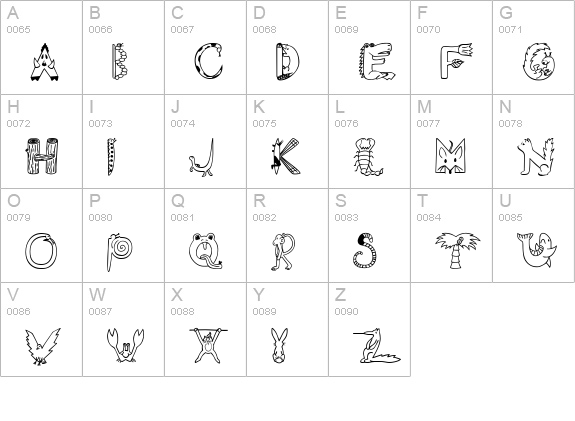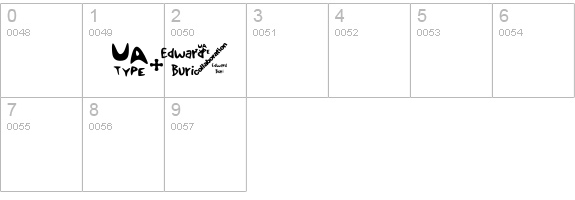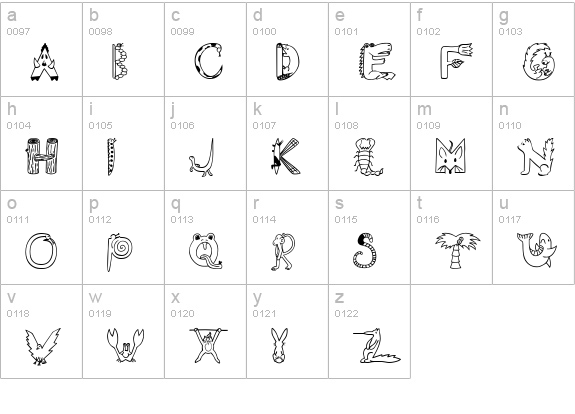
EDB Wild Things Font Details
EDB Wild Things font is a delightful and whimsical typeface that adds a touch of playfulness to any design project. Its unique and hand-drawn letterforms are reminiscent of a child's doodles, making it perfect for projects that require a fun and lighthearted atmosphere. With its irregular shapes and uneven strokes, EDB Wild Things font brings a sense of spontaneity and creativity to your designs. Whether you're designing a children's book cover, a party invitation, or a logo for a playful brand, this font is sure to capture attention and bring a smile to anyone who sees it. What makes EDB Wild Things font even more special is that it is freely available to download at FontsMarket.com. You can easily access this font and incorporate its unique charm into your designs without any hassle. Whether you're a professional designer or a hobbyist, this free font offers a wonderful opportunity to unleash your creativity and add a touch of wildness to your projects. So go ahead, download EDB Wild Things font and let your imagination run wild! With its free availability and delightful design, this font is the perfect choice for those who want to infuse their designs with a sense of fun and adventure. Let the wild things inspire you and create designs that truly stand out.